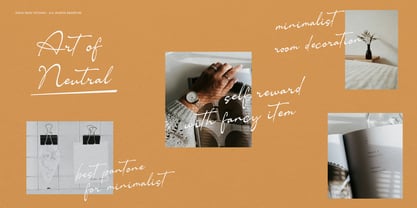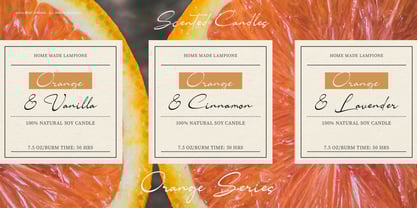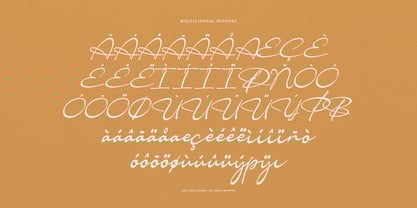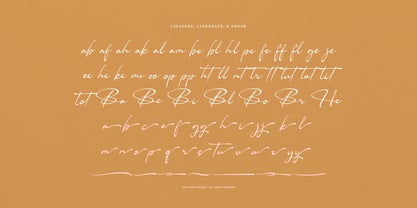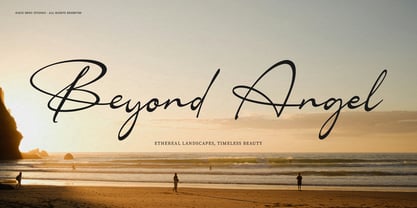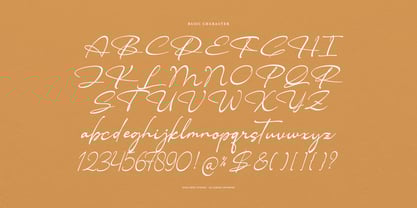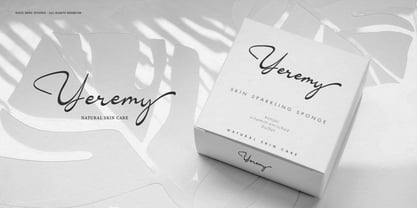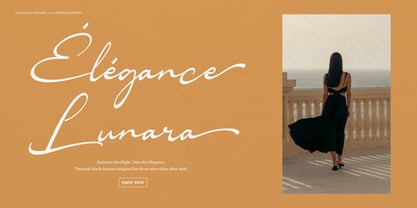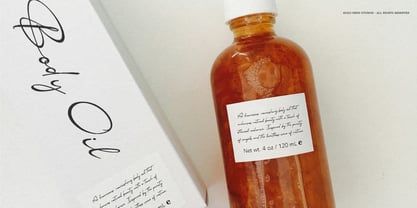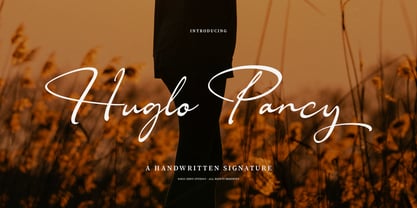
Huglo Pancy
by Denustudio
The Huglo Pancy Font Family was designed by Dede Nugraha and published by Denustudio. Huglo Pancy contains 2 styles and family package options.
Huglo Pancy | Handwritten Signature from Denustudios, suitable for any projects such as: logos, branding projects, homeware designs, product packaging, mugs, quotes, posters, shopping bags, t-shirts, book covers, name card, invitation cards, greeting cards, label, photography, watermark, special events, and all your other lovely projects that need Handwritten Signature a taste.
• Regular and Italic
• Alternate and Ligature